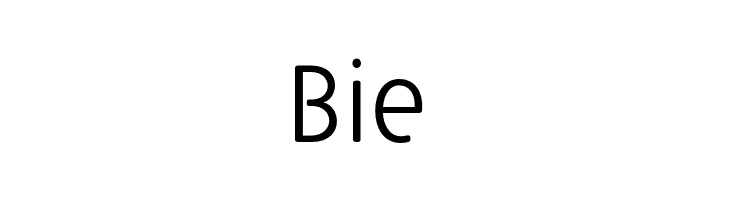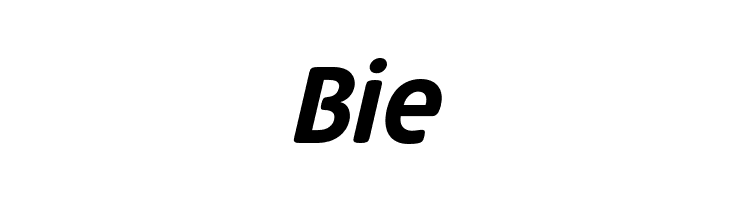
• Josefa Rounded Reduced Medium
A modern, rounded font with smooth curves and a friendly appearance.
• Josefa Rounded Reduced Thin
A modern, rounded, and thin sans-serif font with a clean and elegant design.
• Josefa Rounded Reduced Black
A bold, rounded font with a friendly and approachable style.
• Josefa Rounded Reduced Light
A modern, rounded font with a clean and approachable design.
• Josefa Rounded Reduced Book
A modern, rounded typeface with a friendly and approachable design.
• Josefa Rounded Reduced Medium Italic
A rounded, medium-weight italic font with a friendly and modern appearance.
• Josefa Rounded Reduced Bold
A bold, rounded font with smooth curves and a modern, friendly appearance.
• Josefa Rounded Reduced Light Italic
A modern, rounded, light italic font with a sleek and approachable design.
• Josefa Rounded Reduced Thin Italic
A modern, rounded, thin italic font with a sleek and elegant design.
• Josefa Rounded Reduced ExtraLight
A modern, rounded font with clean lines and even spacing.